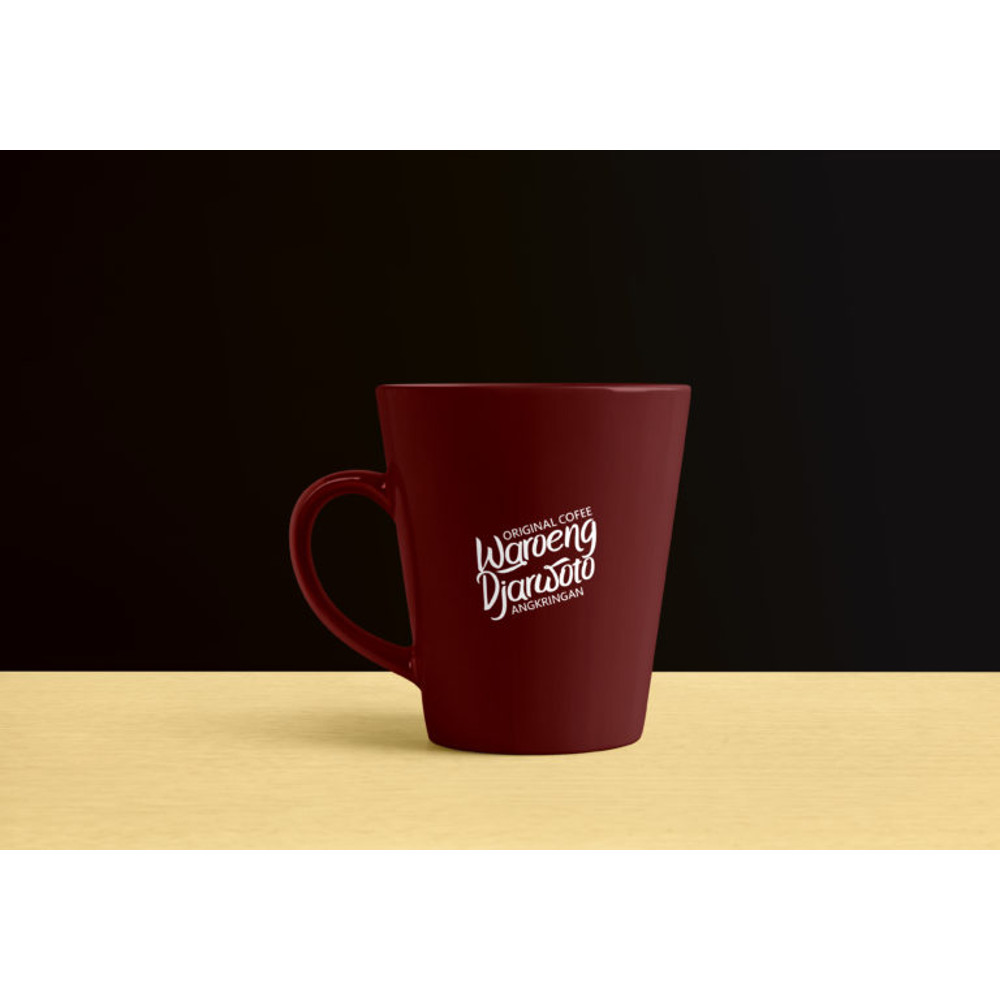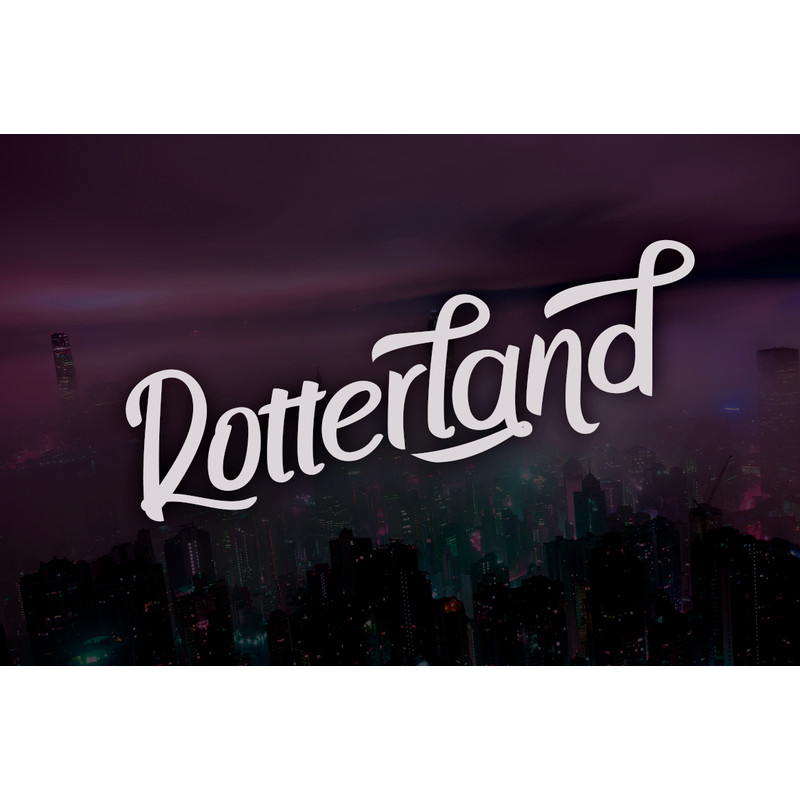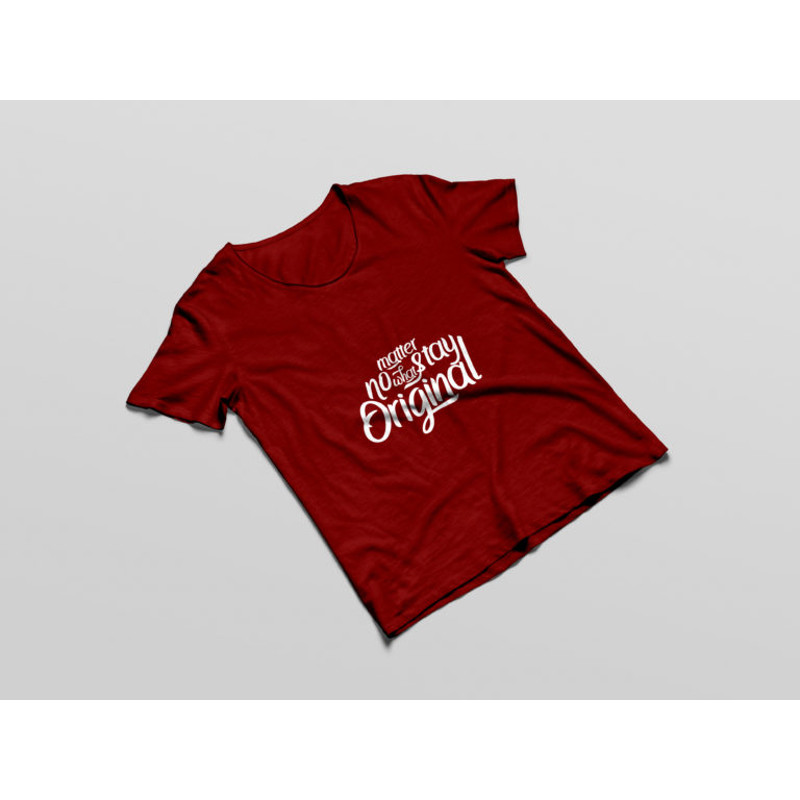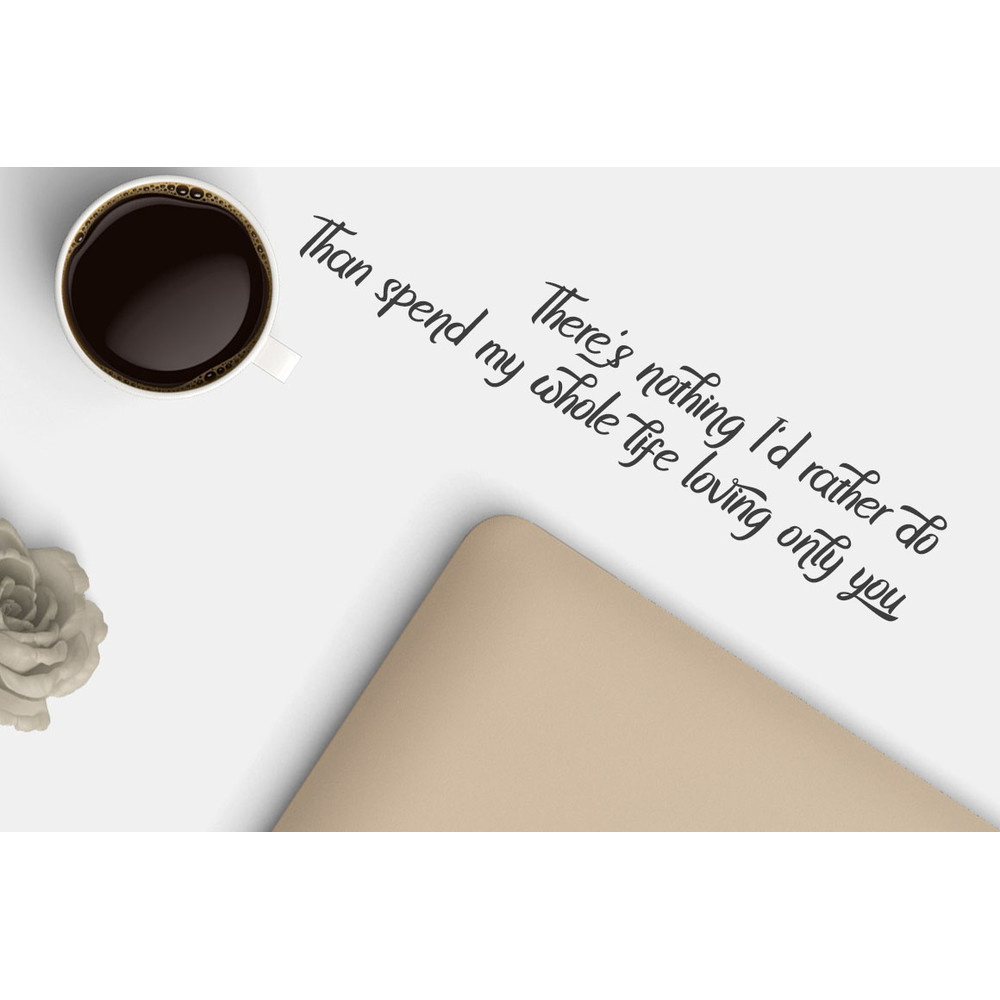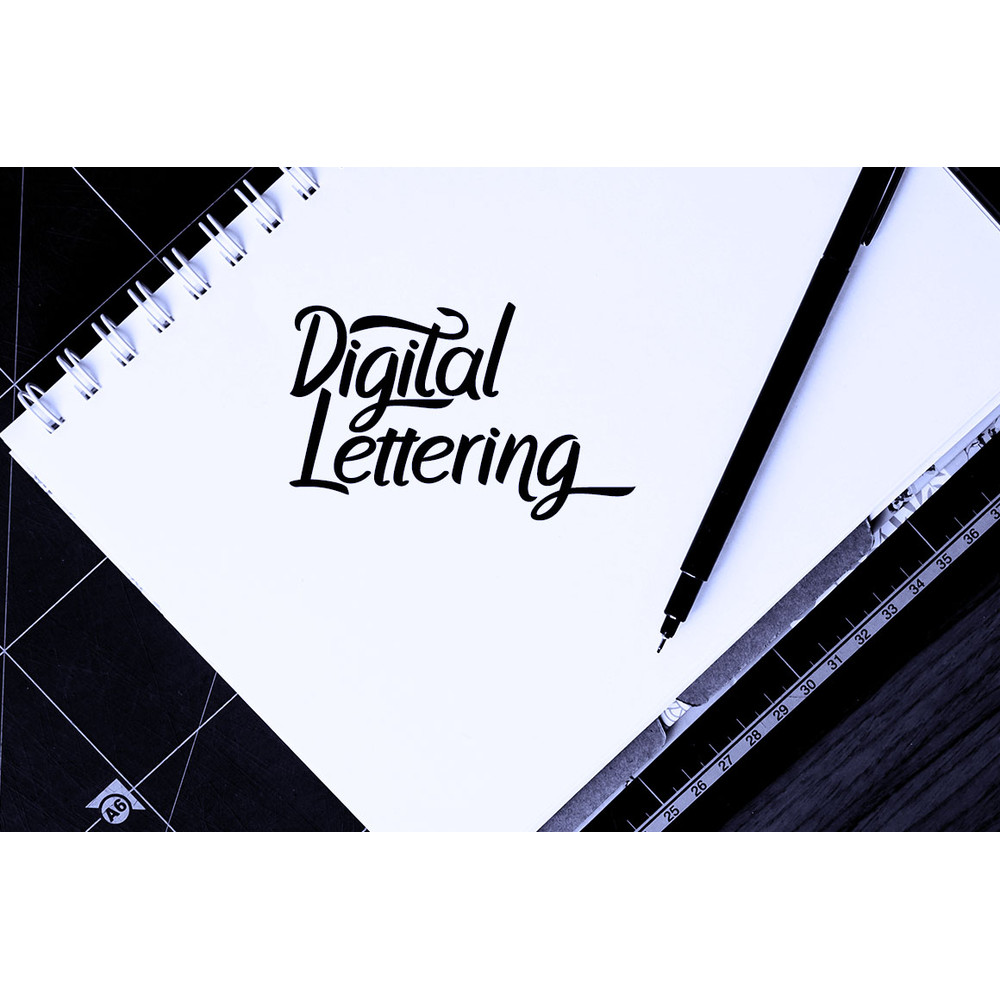
Hello everyone! Let me introduce my new typeface, Crushed. It’s a handwritten paintbrush typeface with gentle characters and elegant style. You can use this font for various purpose like logo, product design, t-shirt, stationery, poster, etc. Include bonus Adobe Illustrator brush to make swash.